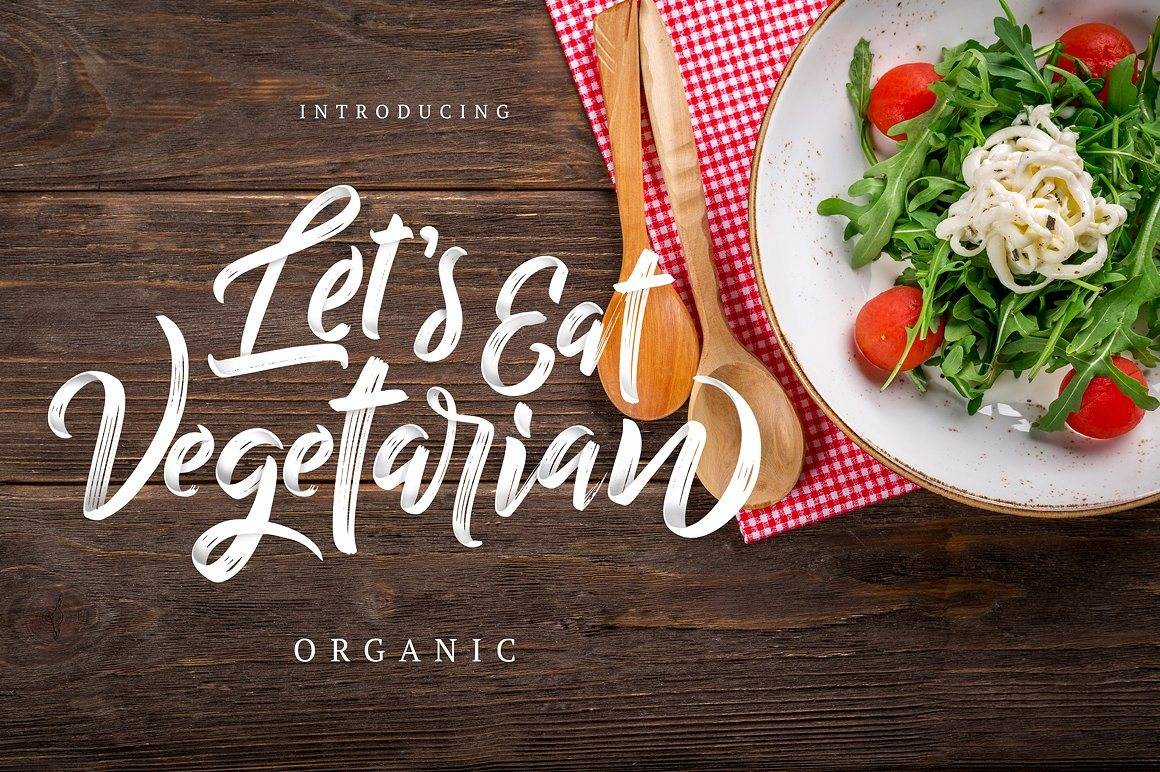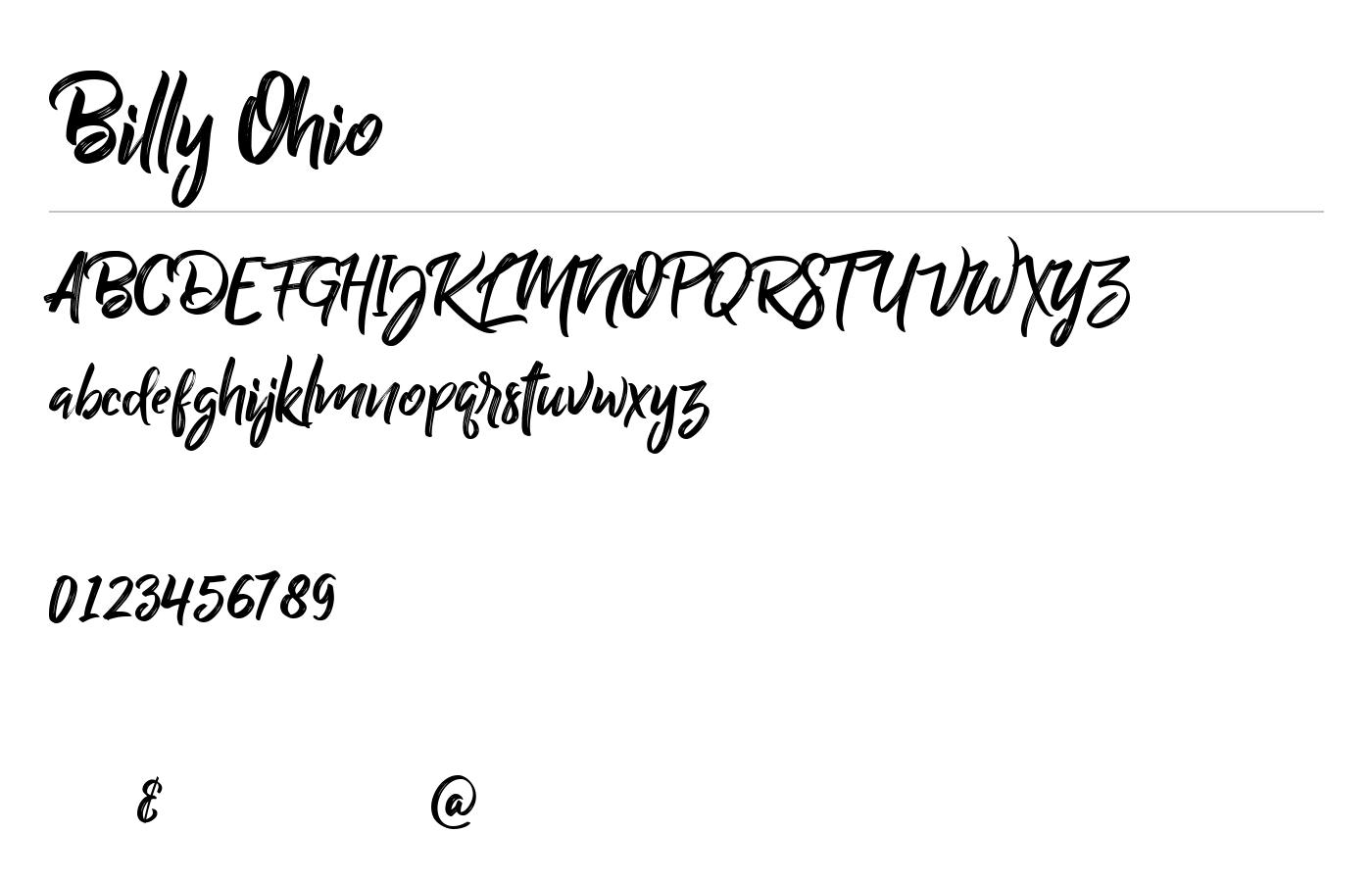
Billy Ohio is a lively brush script font with a bold yet natural hand-drawn feel, featuring smooth, flowing strokes and a strong personality. Its casual elegance makes it ideal for creative branding, packaging, and headlines where a personal, artistic touch is desired. This font works well to add warmth and energy to designs without compromising readability.
Billy Ohio Font
About Billy Ohio Font
| Font family | Billy Ohio Font |
| Release date | 2013-01-29 |
| Designer | Alit Suarnegara |